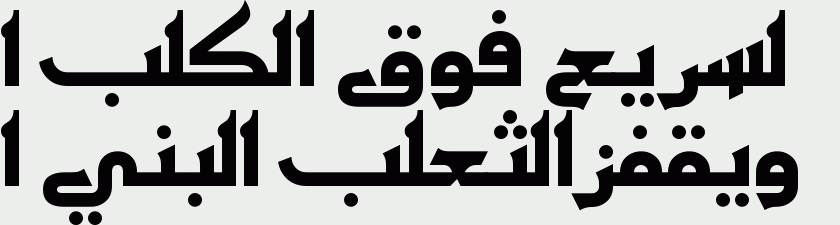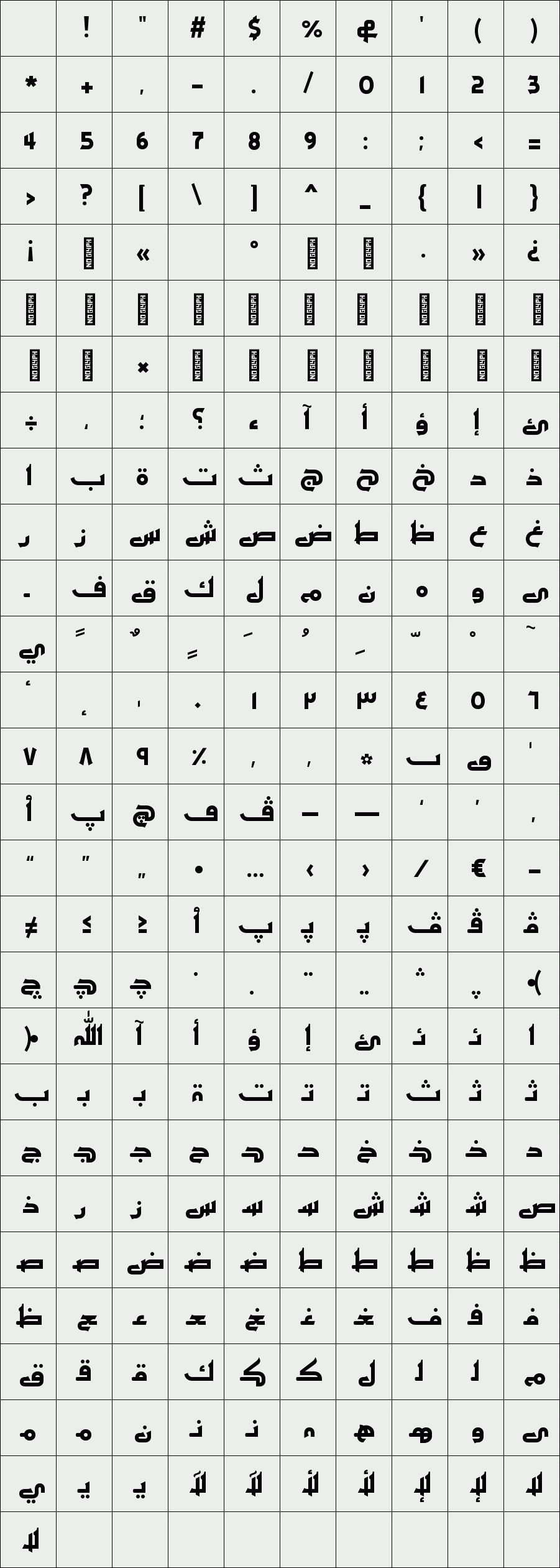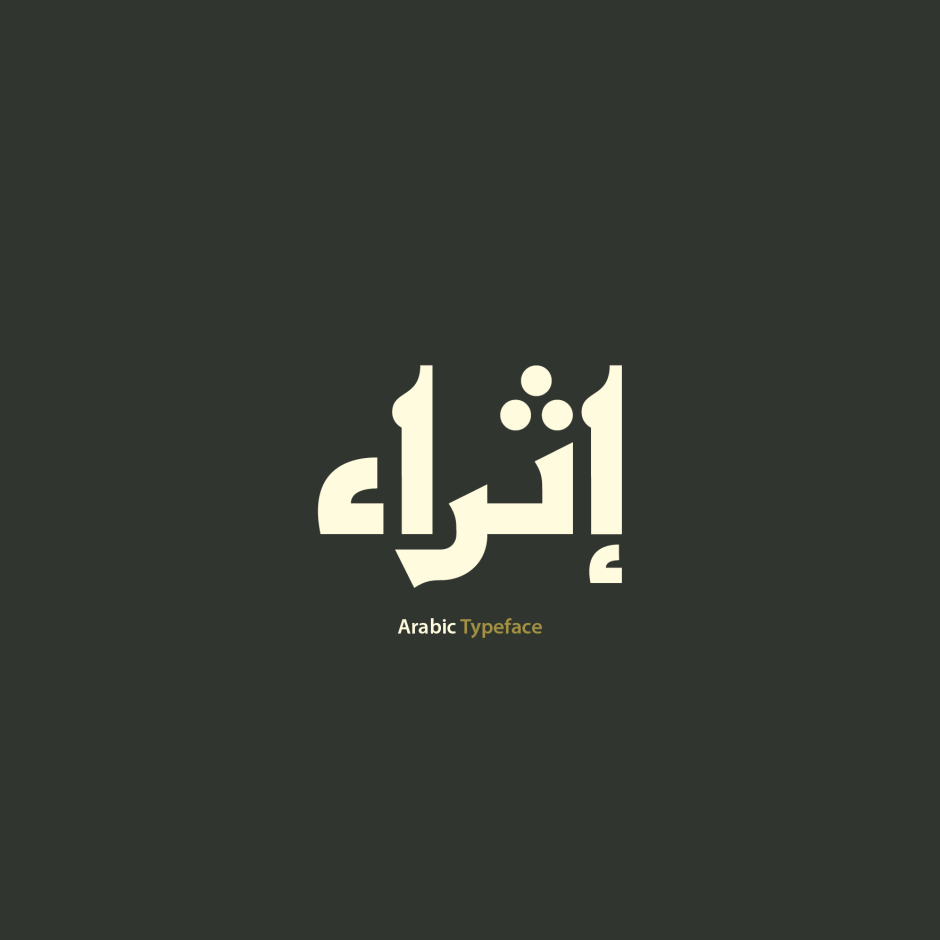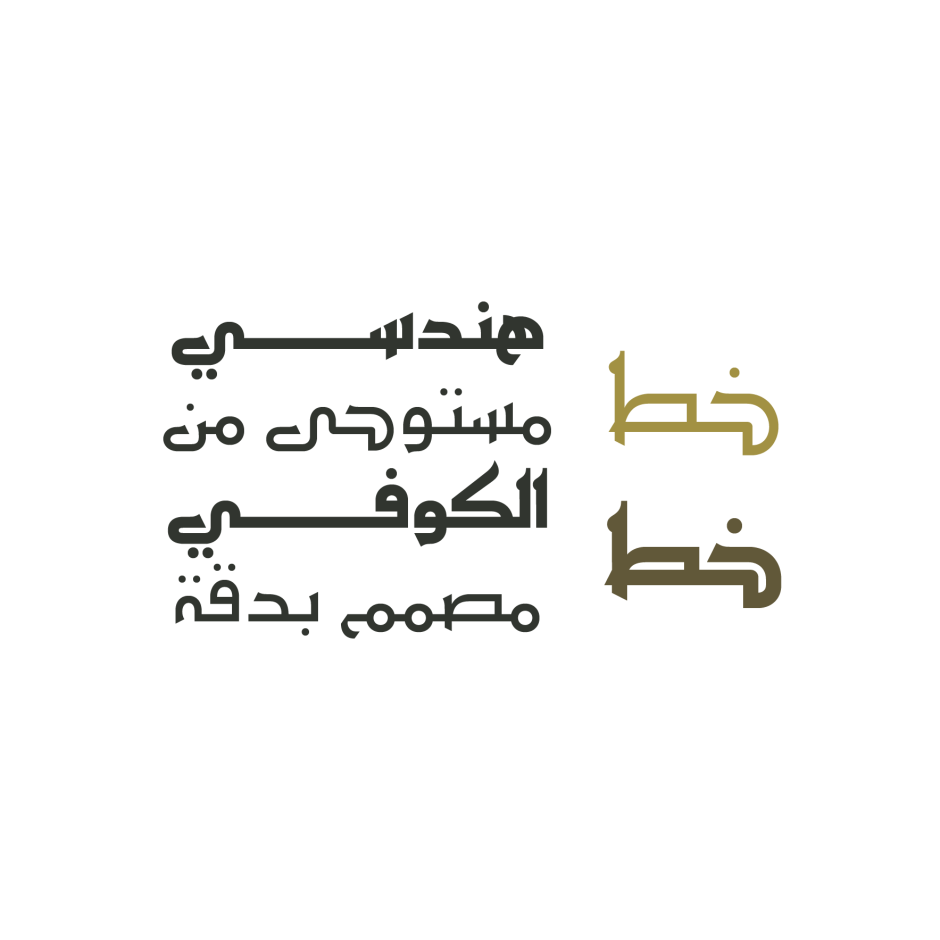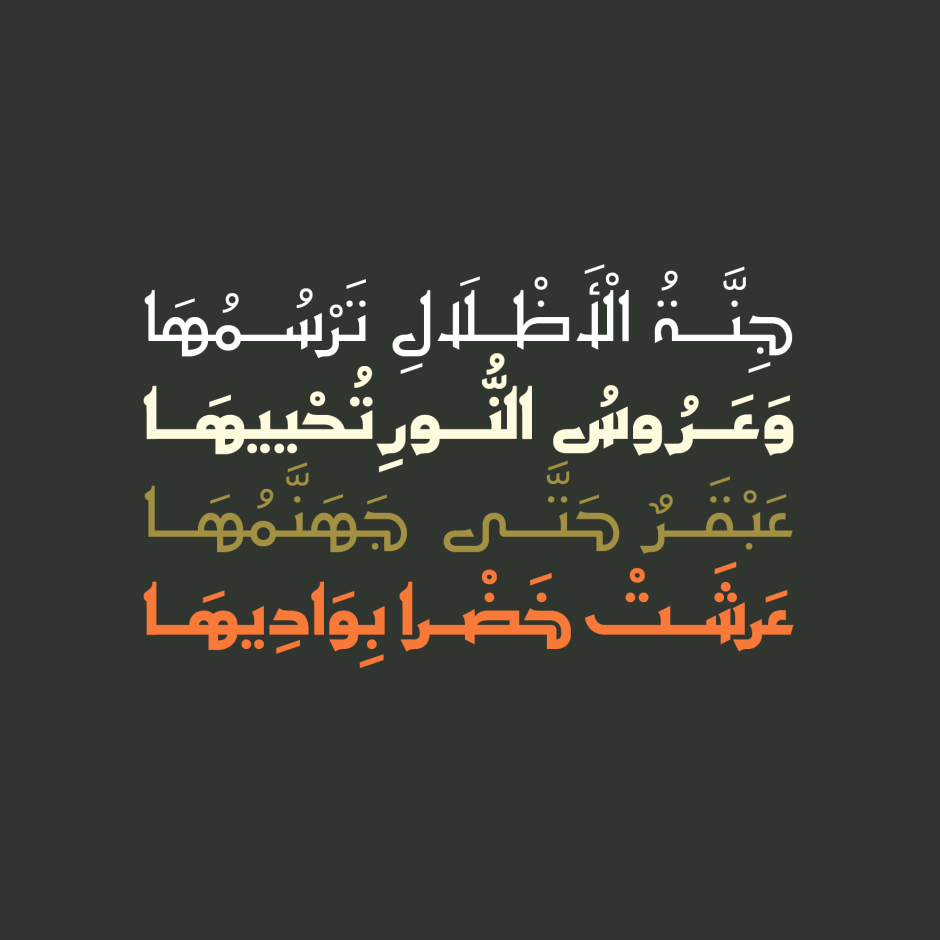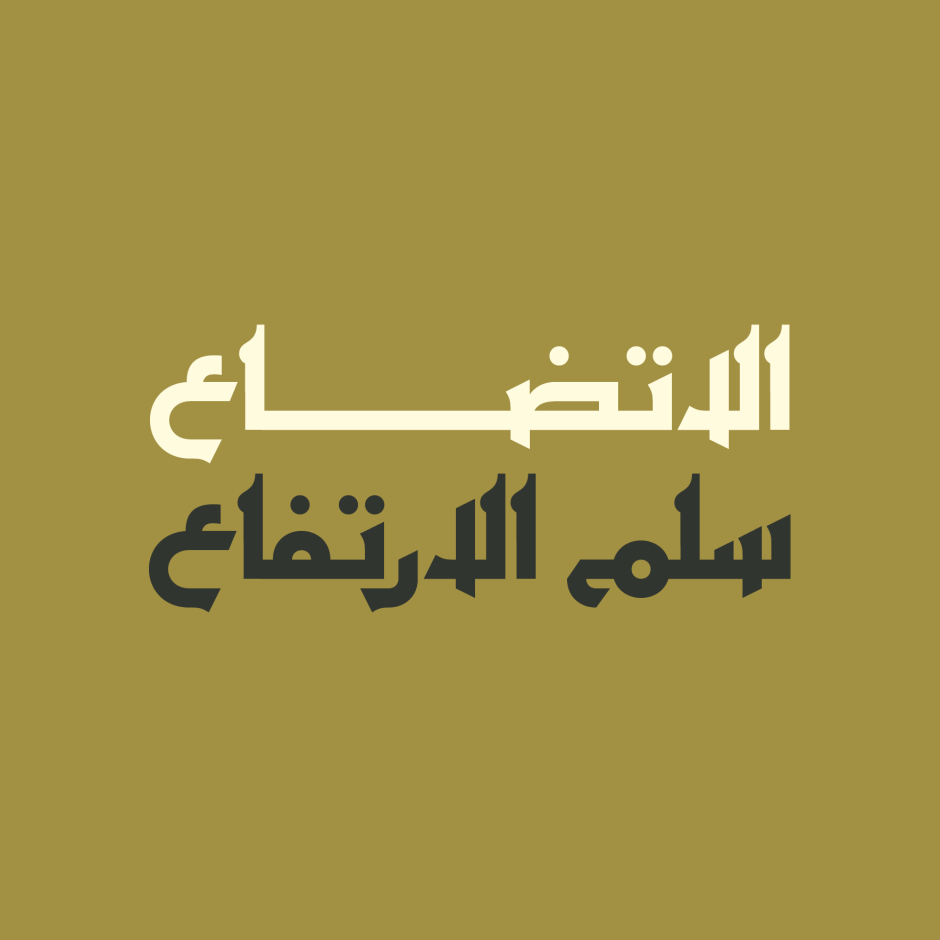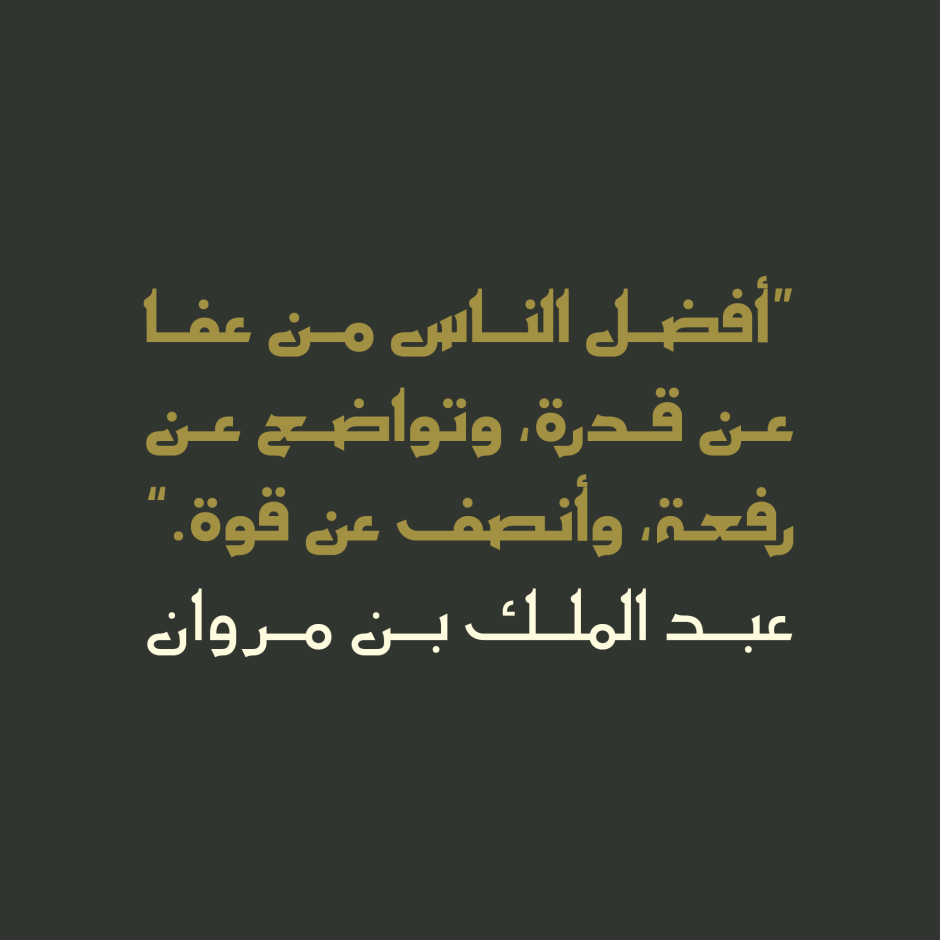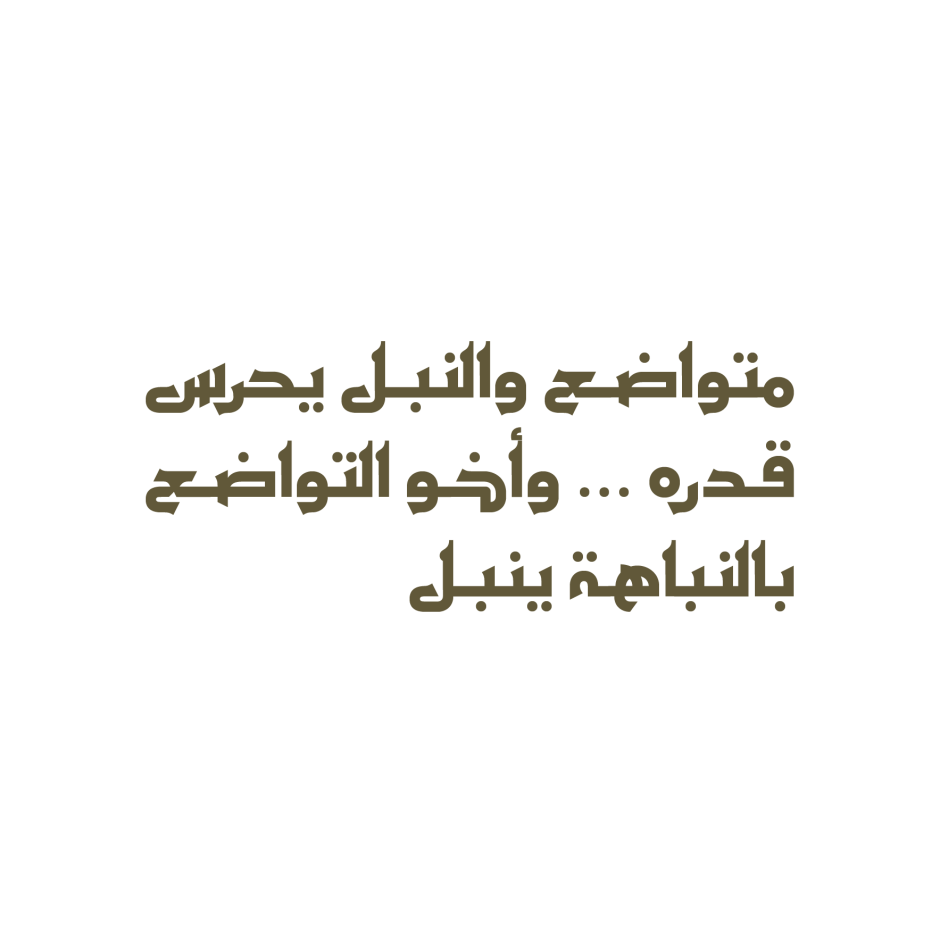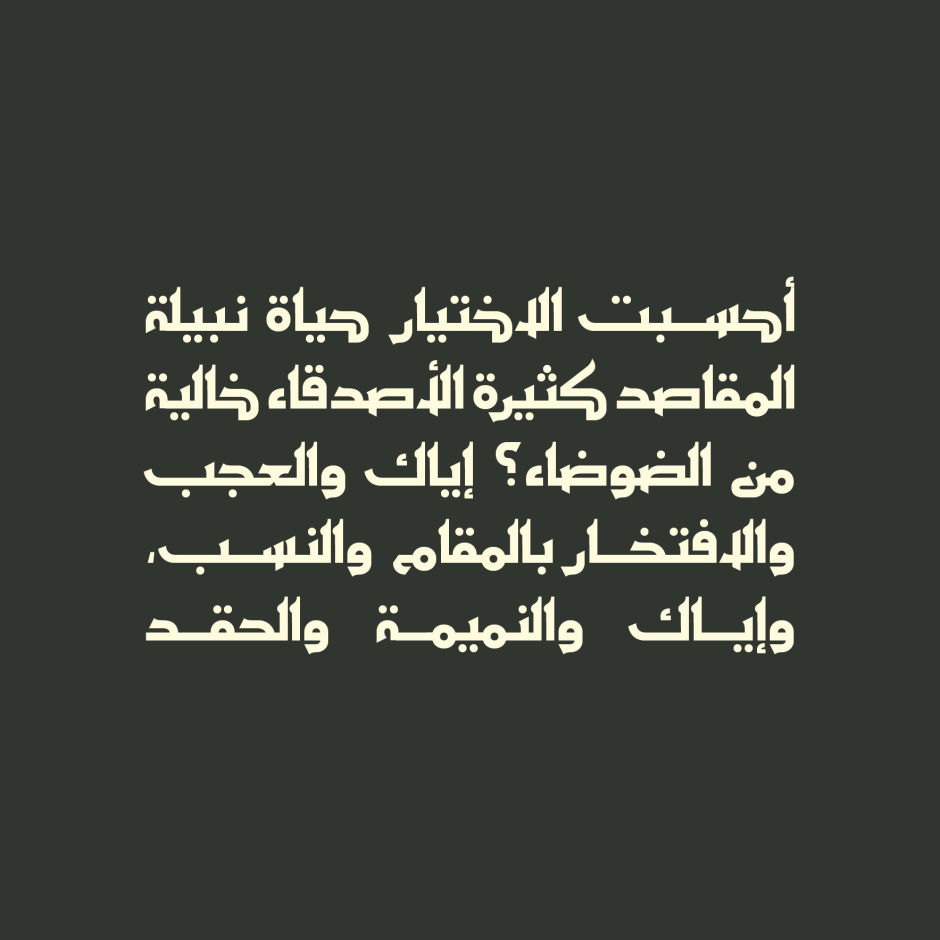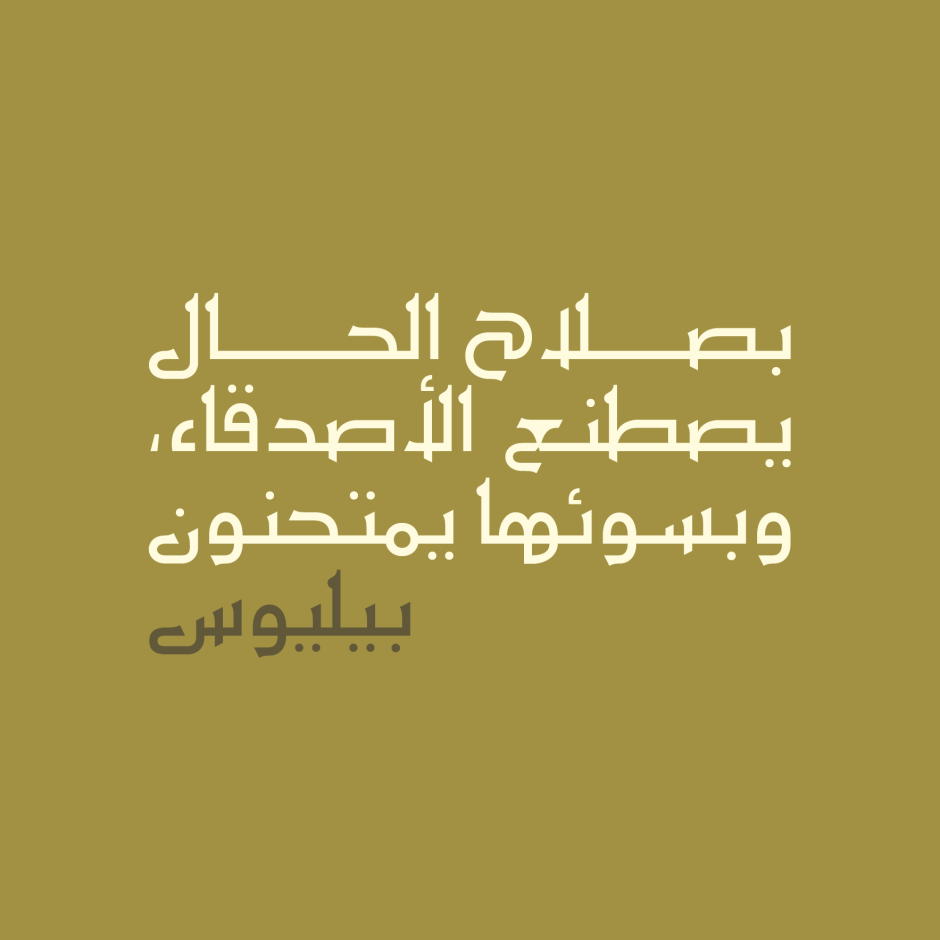
Ithra
Ithra (which is the Arabic word for enrichment) is an Arabic display font that is inspired by the Kufic calligraphy styles of the Fatimid Dynasty (909-1171). The font features two weights (regular and bold) and it is suitable for all modern projects including web, print and smart phone applications.